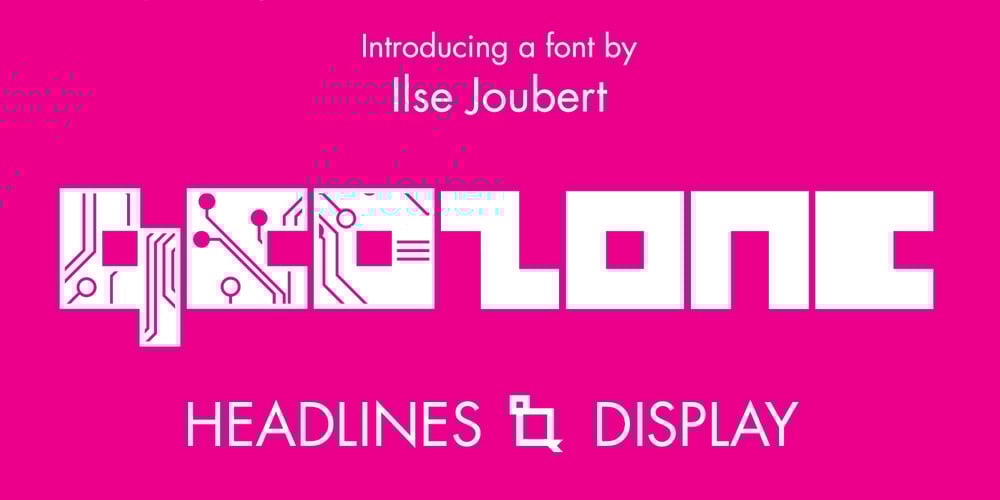
Geozone Font Family was designed by Ilse Joubert and published by Ilse Joubert. Geozone contains 1 styles and family package options. Geozone is a font made for Headlines and Display, yet it includes a full set of punctuation and additional characters. A robotic, electronic, circuit board, geometric design that is very bold and blocky.